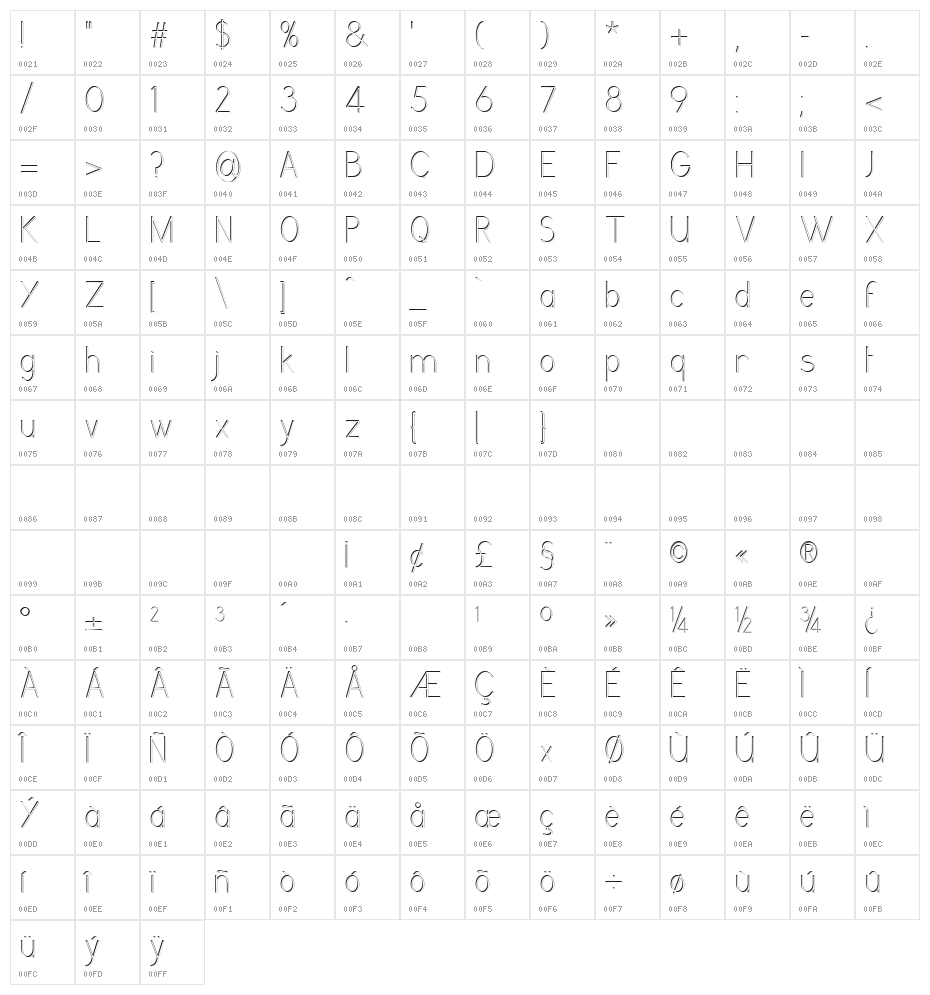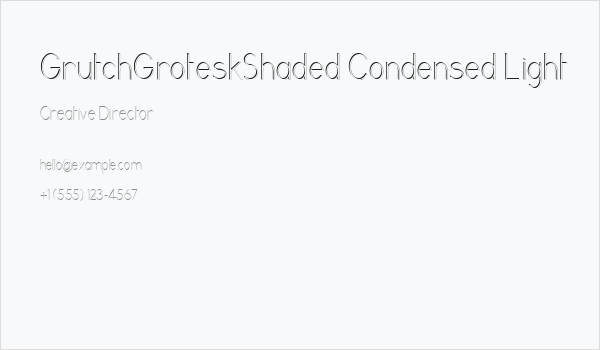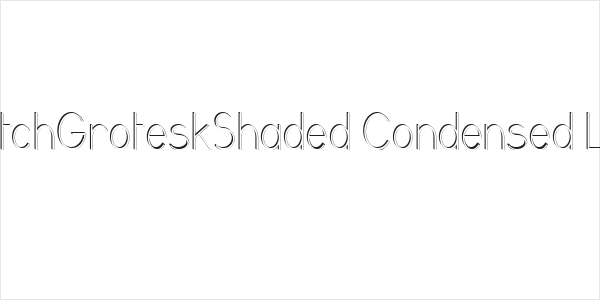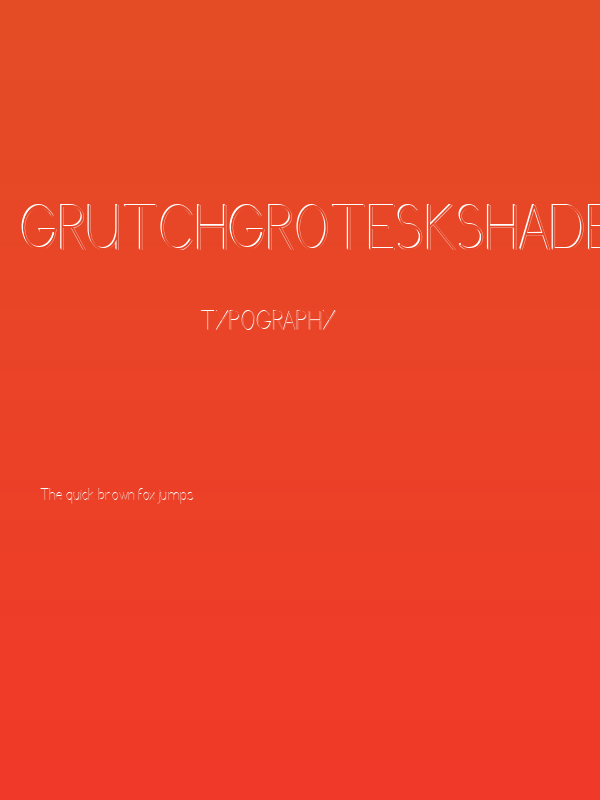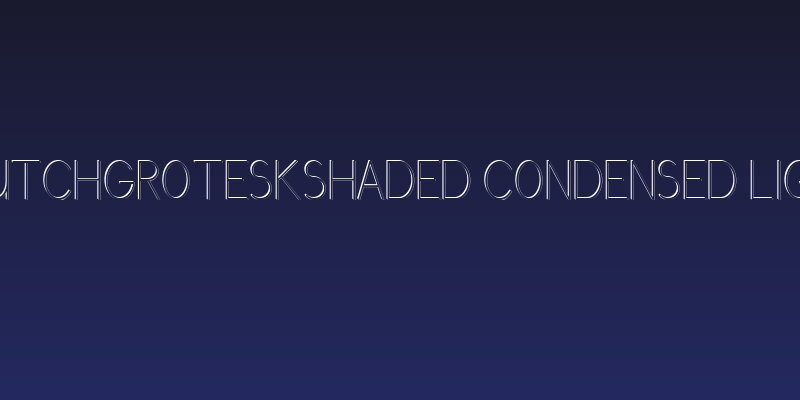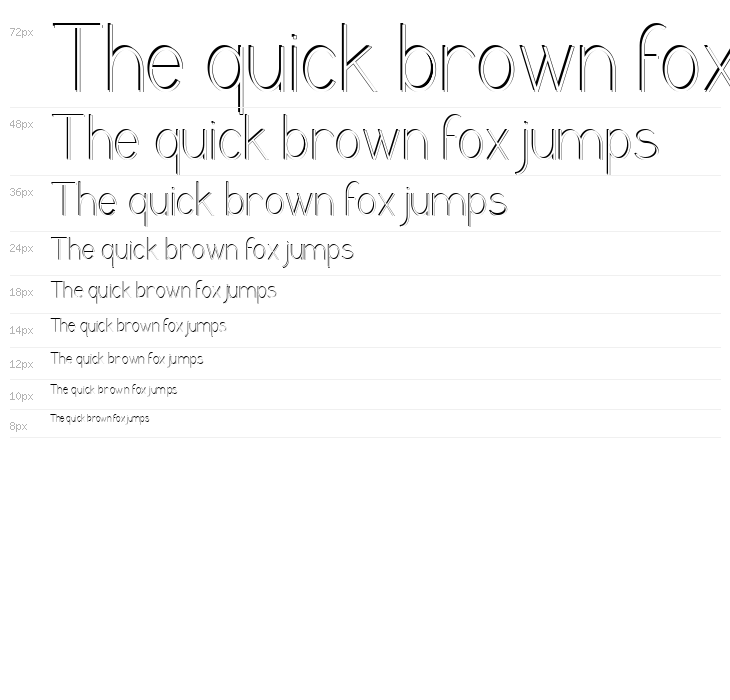
GrutchGroteskShaded Condensed Light Font
GrutchGroteskShaded Condensed Light Description
This font features a unique blend of modern and vintage aesthetics, characterized by its condensed and light structure. The letters are outlined with a shaded effect, giving them a three-dimensional appearance. The uppercase and lowercase letters maintain a consistent geometric form, with clean lines and minimalistic design. The numerals and special characters complement the alphabet with the same stylistic approach, ensuring a cohesive look across all text elements. The font's overall design is sleek and sophisticated, making it suitable for a variety of creative applications.
| Proposed Projects | Ideal for branding, editorial design, posters, and digital media where a modern and stylish look is desired. |